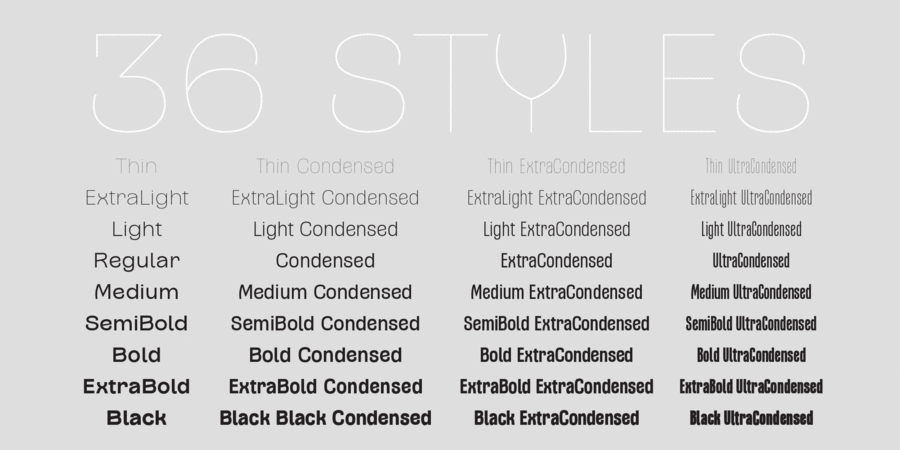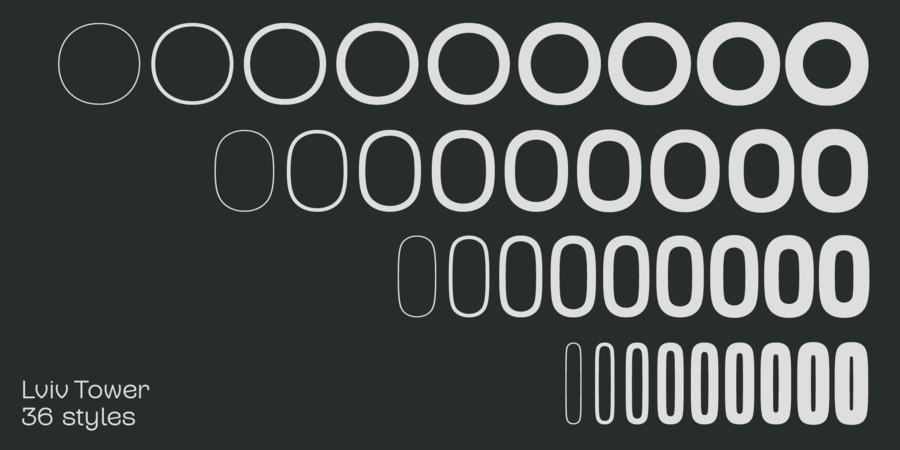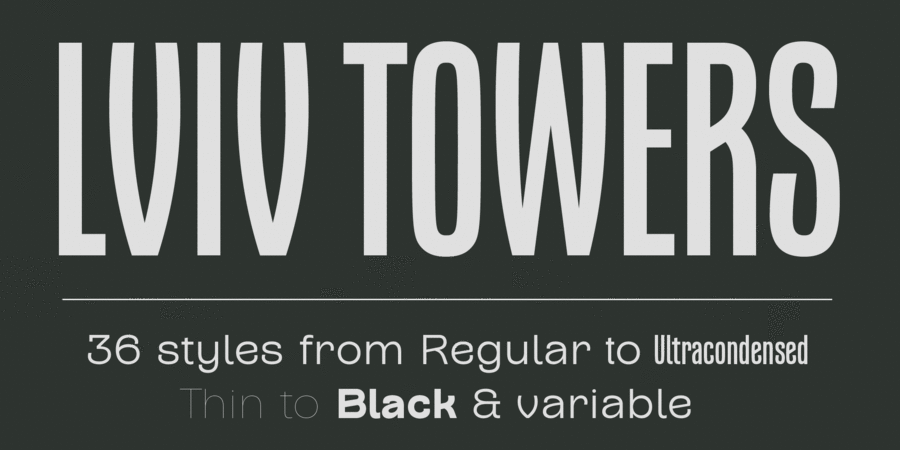
About Lviv TowersThis grotesque typeface has unmatched personality and charisma. The idea of its creation was influenced by old shop signs in Lviv and theater posters of the 19th century. The font is perfect for an exquisite product with a rich taste and unforgettable aroma. Designed by Victor Fedyuk and Kyrylo Tkachov in 2024.
Features of font family Lviv TowersThe hit of the decade:
Associations for font family Lviv TowersTypeface personality and character:
urban, high-quality, comfortable, smooth, flexible, original, kind, pleasant, conservative, old-fashioned, artistic, beautiful, historical, plastic, dynamic, elegant, refined, delicate, aesthetically beautiful, thin, easy, clear, clean, weightless, transparent, fragile, wire, cultural, rich, tender, cozy, neon, intimate, glass, handicraft, self-assured, important, convincing, wooden, strong, notable, flat, slim, compressed, tall, distinctive, interesting, crisp, stable, cinematic, solid, loud, authoritative, persistent, reliable, bright, splashy, heavy, powerful, close-fitting, black
city, ecology, clothes, water, souvenir, tourism, history, museum, art, architecture, interior, cosmetics, perfumery, theater, coffee, sculpture, diet, beauty, Eau de Toilette, ASMR, lotion, fashion, headstone, monument, memorial, trophy, reward, furniture, craft, tree, sticky label, cafe, bread, cinema, retail, first night, skyscraper Typeface associated with age: